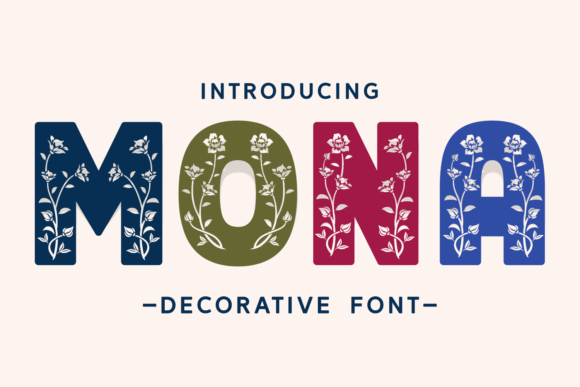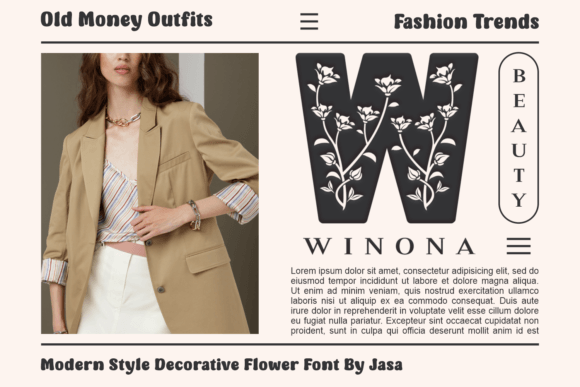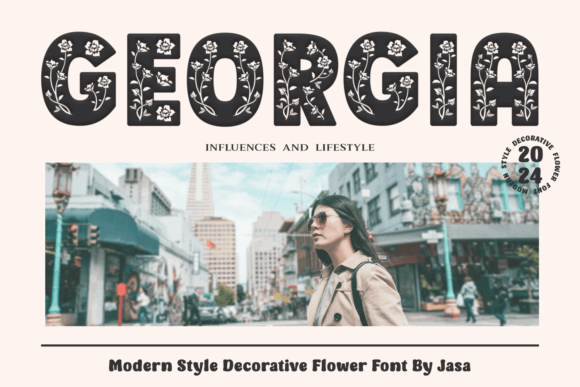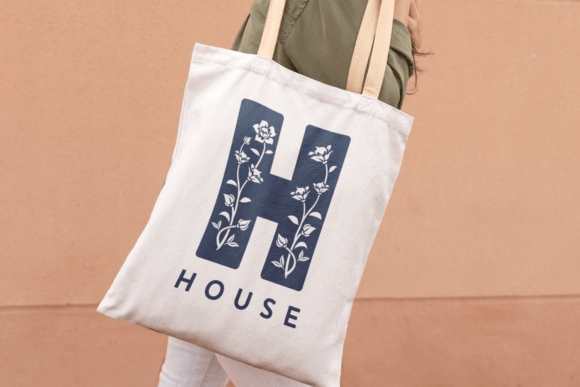
Mona Font: Floral Typography for Unique Logo Design & Branding
About the Mona Font
Crafted with precision, the Mona Font is ready to bring your ideas to life. Mona is a creative and beautiful decorative font. It includes characters with floral patterns. It can be used for headlines, titles, logos, posters, signage, branding materials, and more, adding a bold and expressive touch to any project.
Mona’s bold and expressive nature makes it ideal for headlines, logos, and short, impactful text within branding materials or posters. Its decorative flourishes, however, make it less suitable for body copy or UI elements where readability is paramount. Extended use could hinder legibility.
Consider pairing Mona with a clean sans-serif like Open Sans for a balanced contrast, or a classic serif such as Garamond for a more refined and traditional feel. For a playful approach, a script font with simpler lines would complement its decorative elements without overwhelming the design.
Mona projects a confident and slightly whimsical personality, best suited for brands aiming for a memorable, creative, and perhaps slightly feminine image. It’s a strong choice for projects needing a touch of artistic flair without sacrificing impact.